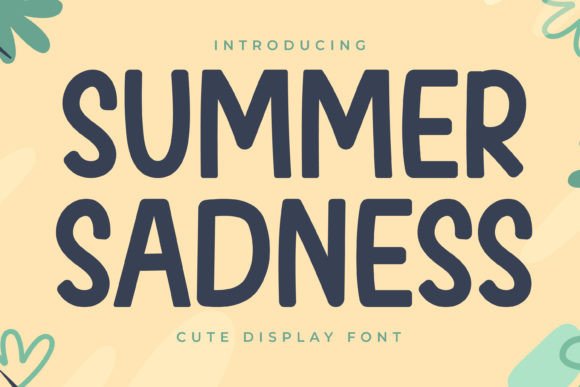
Introducing Summer Sadness Font, the display font that will turn your words into a visual masterpiece! This quirky and bold typeface is perfect for any occasion, from playful posters to elegant invitations. Its casual charm creates a down-to-earth vibe, ensuring effortless readability and versatility.
Summer Sadness Font's versatility shines in a myriad of applications. Elevate your quotes with a touch of whimsical charm. Transform your shirt designs into eye-catching statements. Craft websites that exude a unique personality. Let your branding stand out from the crowd with a touch of whimsy. Create children's designs that spark imagination. Your blogs will come alive with a playful twist. Design logos that leave a lasting impression. Send invitations that set the tone for unforgettable events.
With Summer Sadness Font, the creative possibilities are endless. It's the perfect choice for those who seek to add a touch of playfulness and style to their designs. Whether you're a seasoned designer or just starting your creative journey, this font is your passport to captivating visual expression.